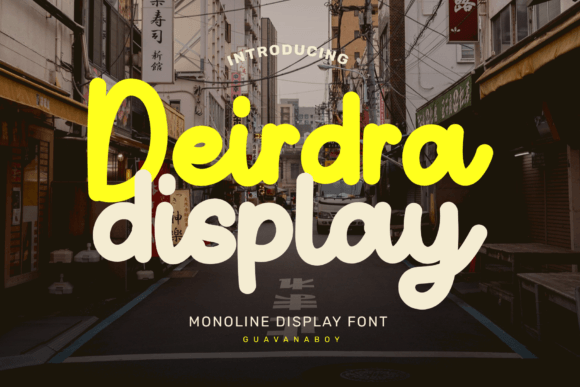
Discover the Beauty of Deirdra Font
Have you ever stared at a blank page, waiting for the perfect font to bring your creative vision to life? That’s exactly what happened to me when I stumbled upon the elegant Deirdra Font. Its monoline design and refined aesthetic immediately caught my attention, and I knew I had to share it with fellow designers.
Deirdra Font is a stunning display font, expertly crafted to make a lasting impression. Whether you’re creating social media graphics, advertisements, or logos, this font is the perfect addition to your design arsenal. Its versatility and elegance make it an invaluable asset for designers, allowing them to elevate their work and stand out in a crowded market.
Deirdra Font Key Features
- Font Family: Deirdra is a script font designed by Alejandro Paul, which is part of the Sudtipos foundry.
- Unique Characteristics: Deirdra features a unique, handwritten style with subtle flair and elegance, making it suitable for titles, quotes, and other decorative text.
Deirdra Font Review
I recently had the chance to work with the Deirdra font, and I must say it’s a beautiful addition to any design project. ✨ The font’s elegant script style makes it perfect for creating a sense of sophistication and luxury. The curves are smooth, and the letterforms are well-balanced, making it easy to read even in smaller font sizes.
Here are some of the things that work well in the Deirdra font:
- ✨ Elegant script style
- ✨ Smooth curves and well-balanced letterforms
- ✨ Suitable for a wide range of design projects, from formal invitations to luxury branding
- ⚠️ May not be suitable for highly technical or technical projects due to the script style
- ⚠️ May require more effort to pair with other fonts due to its unique style
- ⚠️ Limited language support, which may be a concern for designers working on multilingual projects
Overall, I’m impressed with the Deirdra font, and I think it’s a great choice for designers looking to add a touch of elegance to their projects. With its smooth curves and well-balanced letterforms, it’s a great option for creating a sense of sophistication and luxury. However, it’s worth considering the limitations mentioned above before making a final decision.
Tips for Getting the Most Out of Deirdra Font
To get the most out of Deirdra font, try the following:
- Use Deirdra font in combination with other elegant fonts to create a sophisticated look.
- Experiment with different font sizes and styles to add visual interest to your design.
- Use Deirdra font for headings and titles to create a clear hierarchy of information.
Deirdra font is commonly used for:
- Personal branding and websites
Alternatives to Deirdra Font for Designers
Alice Script
Alice Script is a beautiful, elegant script font perfect for adding a touch of sophistication to designs. It’s ideal for use in branding, invitations, and wedding designs. Compared to Deirdra Font, Alice Script has a more refined and classic look, making it suitable for formal designs.
Curlz
Curlz is a playful, cursive font great for adding a whimsical touch to designs. It’s ideal for use in children’s designs, party invitations, and social media graphics. Compared to Deirdra Font, Curlz is more casual and fun, making it suitable for informal designs.
Great Vibes is a modern, elegant script font perfect for adding a touch of luxury to designs. It’s ideal for use in branding, packaging, and advertising designs. Compared to Deirdra Font, Great Vibes has a more sleek and sophisticated look, making it suitable for high-end designs.
Q: What is the recommended font size for using Deirdra Font?
The recommended font size for Deirdra Font is between 12pt and 24pt. However, this can vary depending on the specific design project and the intended use of the font. It’s always a good idea to test the font at different sizes to ensure optimal readability.